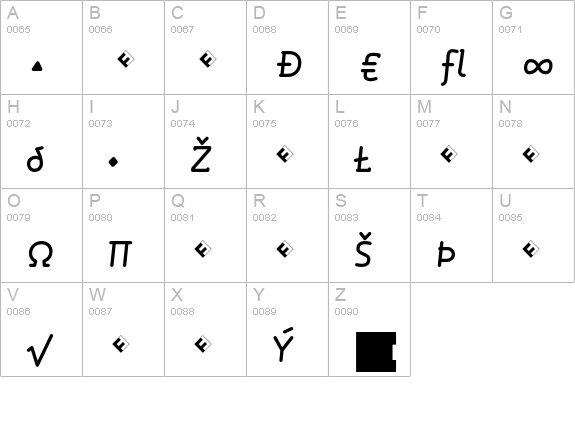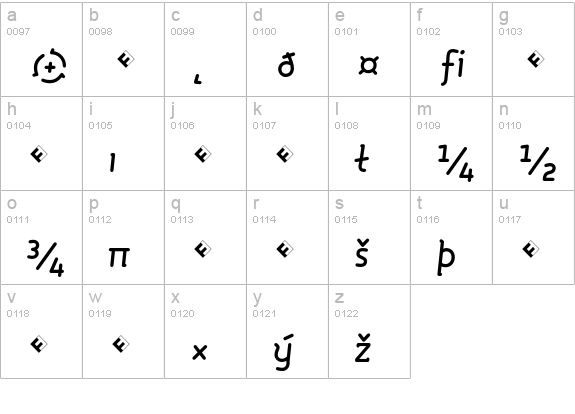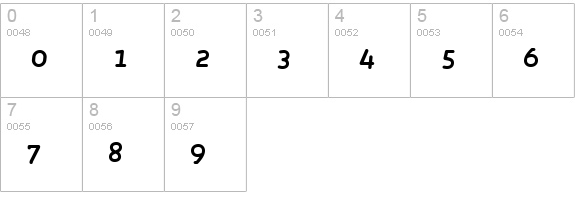
Roice-MediumItalicExpert Font Details
Roice-MediumItalicExpert font is a versatile and elegant typeface that exudes sophistication and professionalism. With its medium weight and italic style, this font is perfect for adding a touch of class to any design project. What sets Roice-MediumItalicExpert font apart is not just its aesthetic appeal, but also the fact that it is available for free download at FontsMarket.com. This means that you can elevate your designs without having to worry about additional costs. Whether you're working on a branding project, a website design, or any other creative endeavor, Roice-MediumItalicExpert font will help you make a lasting impression. Download it for free today and take your designs to the next level!